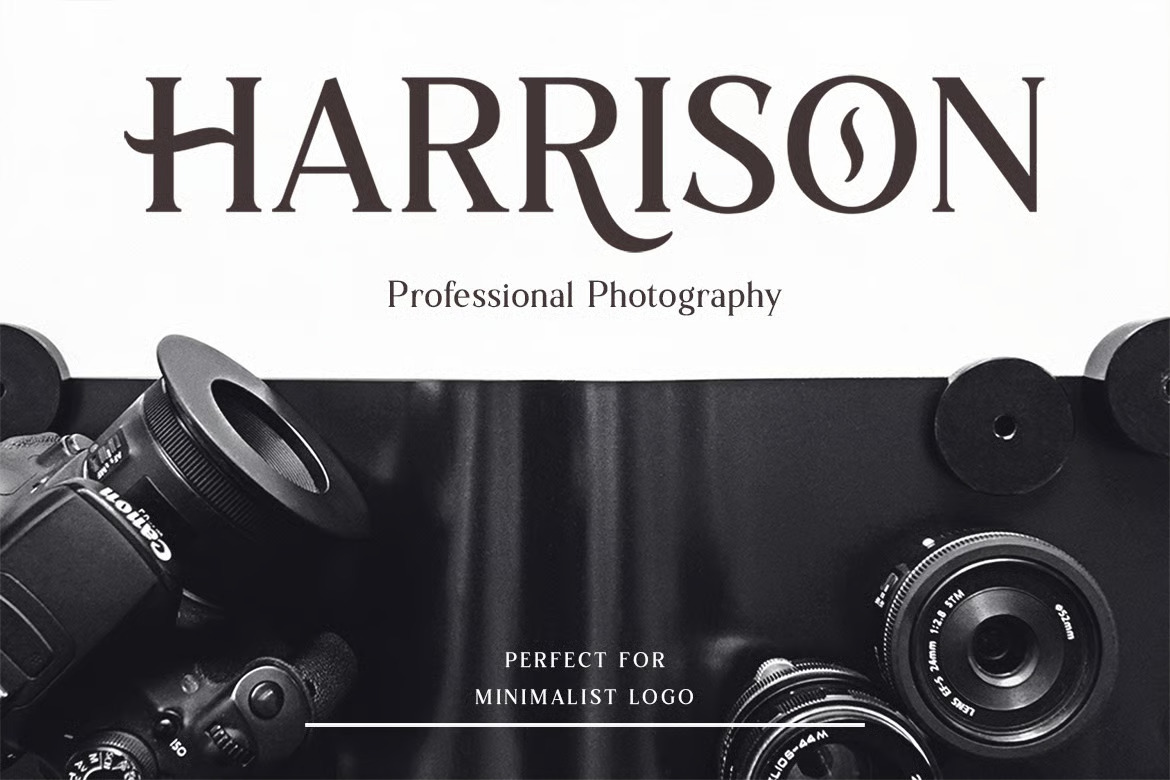
Harrison Serif Font
Harrison Serif is a clean modern serif typeface that was designed to create a minimalist design. This font contains over 450 glyphs and also comes with alternates and ligatures to make your design looks unique and stylish. Perfect for all your design needs like creating minimalist logos, posters, quotes, invitation cards, and many more. It will elevate any design project with its smart and timeless versatility.